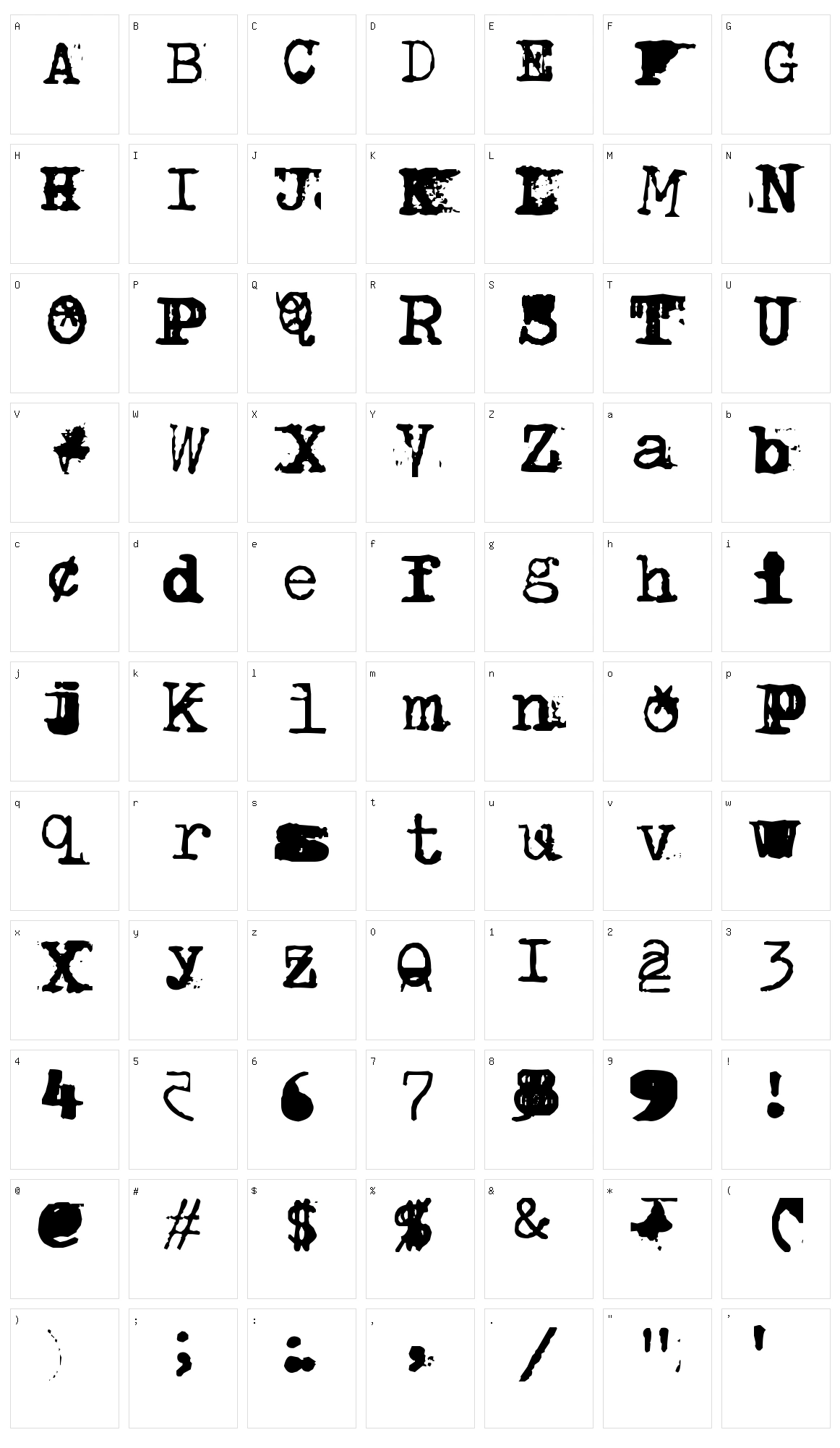
"Brentonscrawltype" is a true type font that is meant to look like
a a document made by ahomemade typewriter with too much ink
being used by a chimpanzee on acid. It isn't too readable, but
it may spice up some documents. One of my favorite letters in it is
the letter "c."